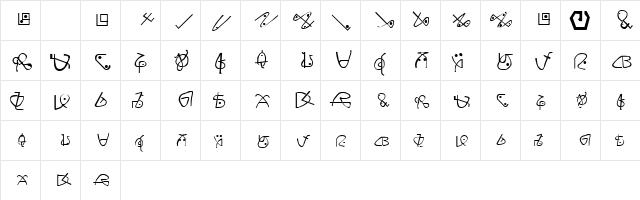
Zentraedi Normal Free Font
Zentraedi Normal
Design Context for Zentraedi
Zentraedi is a composed and adaptable typeface that performs quietly and consistently across a wide range of design contexts.